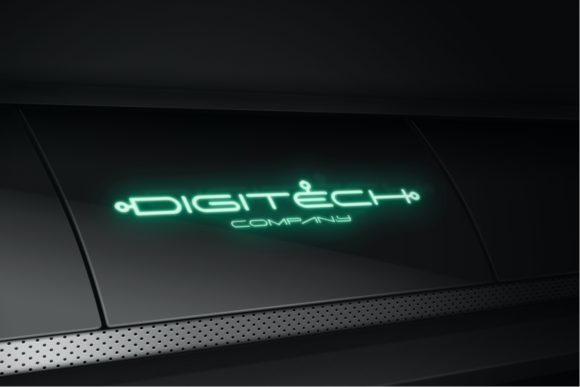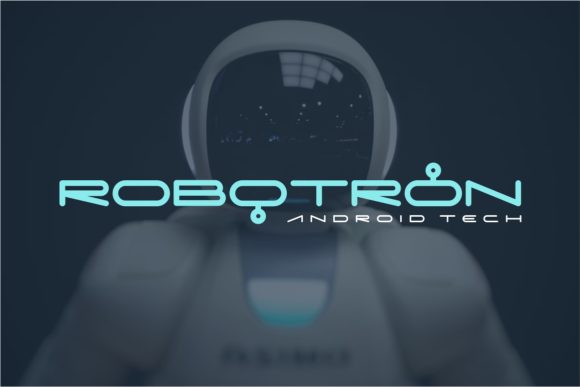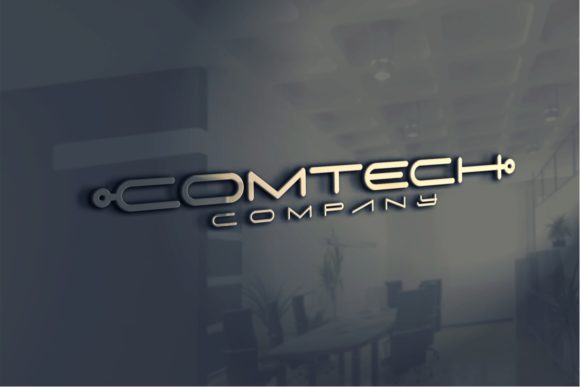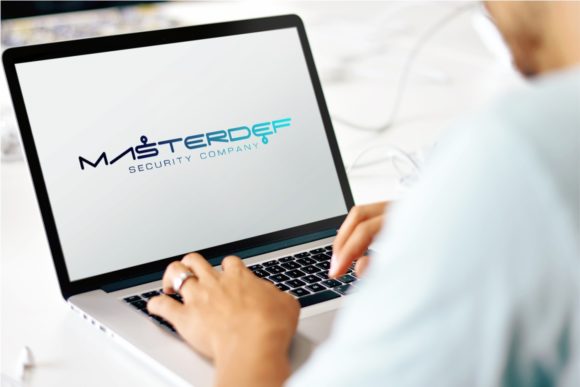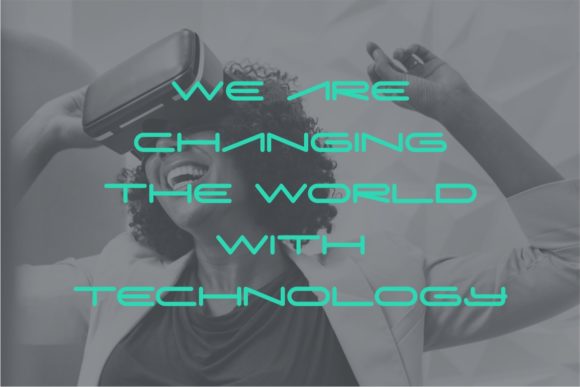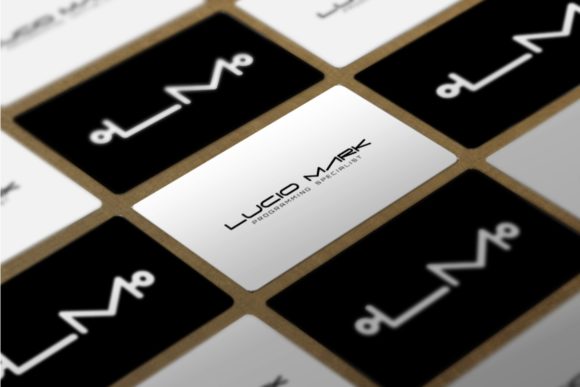
The Futuristic Charm of Digitechno Font
I’ll never forget the time I was working on a futuristic sci-fi project, and my client asked for a font that would make their brand look like it belonged in a cyberpunk movie. I scoured the internet, trying out font after font, but nothing seemed quite right. That was until I stumbled upon the Digitechno font. Its sleek, futuristic design immediately caught my eye, and I knew I had found the perfect fit. In this article, I’ll share my experience with Digitechno, its features, and how to make the most of it in your designs.
A Personal Review of Digitechno
- ✨ Great Readability: Digitechno is incredibly easy to read, even at smaller font sizes. This makes it perfect for body text or headings.
- ✅ Futuristic Aesthetic: The font’s sleek lines and geometric shapes give it a distinctly futuristic feel that’s perfect for tech-related projects.
- 💻 Versatility: Digitechno works well for both digital and print projects, making it a great addition to any designer’s font library.
While Digitechno is an excellent font, it’s not without its quirks. For example:
- 🤔 Limited Emotional Expression: Digitechno is a display font, and as such, it’s not ideal for conveying a lot of emotion or personality. It’s best used for headlines or titles rather than body text.
- ⚠️ Glyph Limitations: While Digitechno has a range of glyphs and stylistic alternates, it’s not as extensive as some other fonts. This might limit its use in certain design projects.
The Story Behind Digitechno
Digitechno was designed by a team of typographers who wanted to create a font that embodied the spirit of technology and innovation. Inspired by the futuristic landscapes of sci-fi movies and the sleek lines of modern architecture, they crafted a font that’s both functional and visually striking.
| Font Name | Digitechno Font |
| Author | putracetol |
Q: What is the Digitechno font?
A: Digitechno is a futuristic display typeface designed for use in a variety of projects, from digital designs to print materials.
Q: What are some common uses for the Digitechno font?
A: Digitechno is commonly used for futuristic designs, tech-related projects, and digital media.